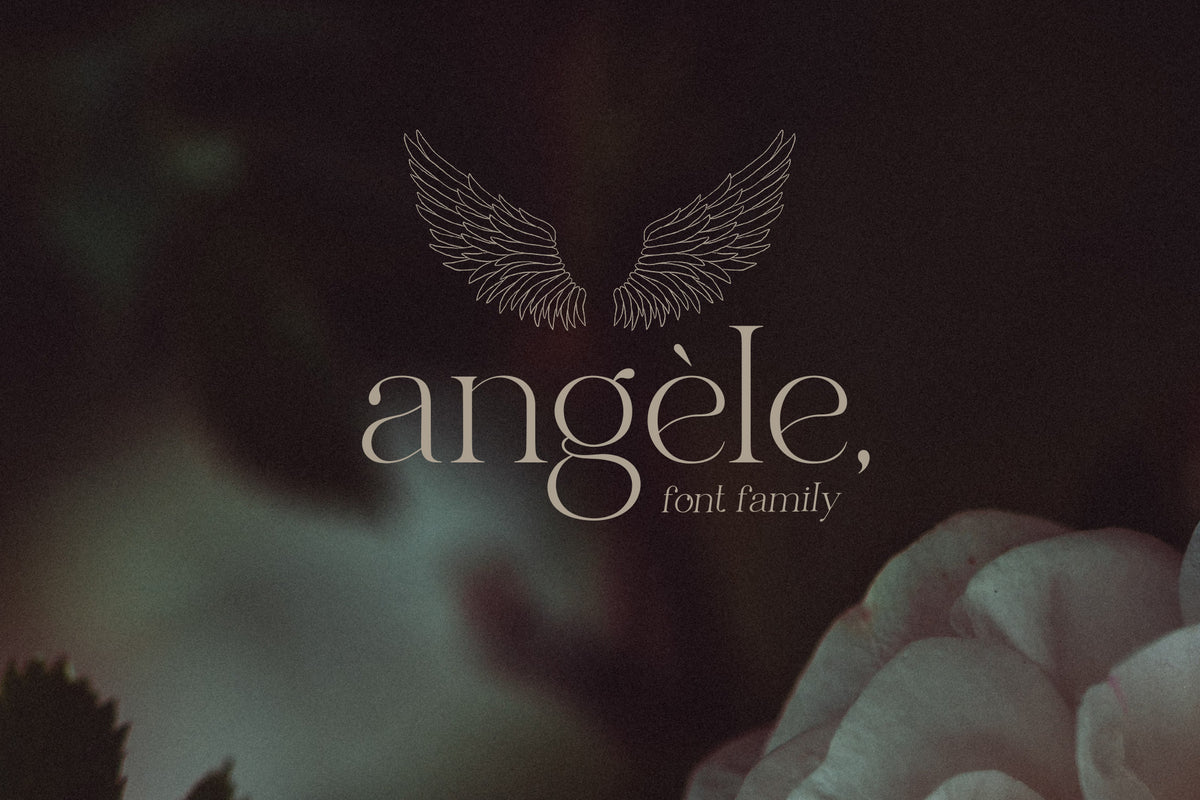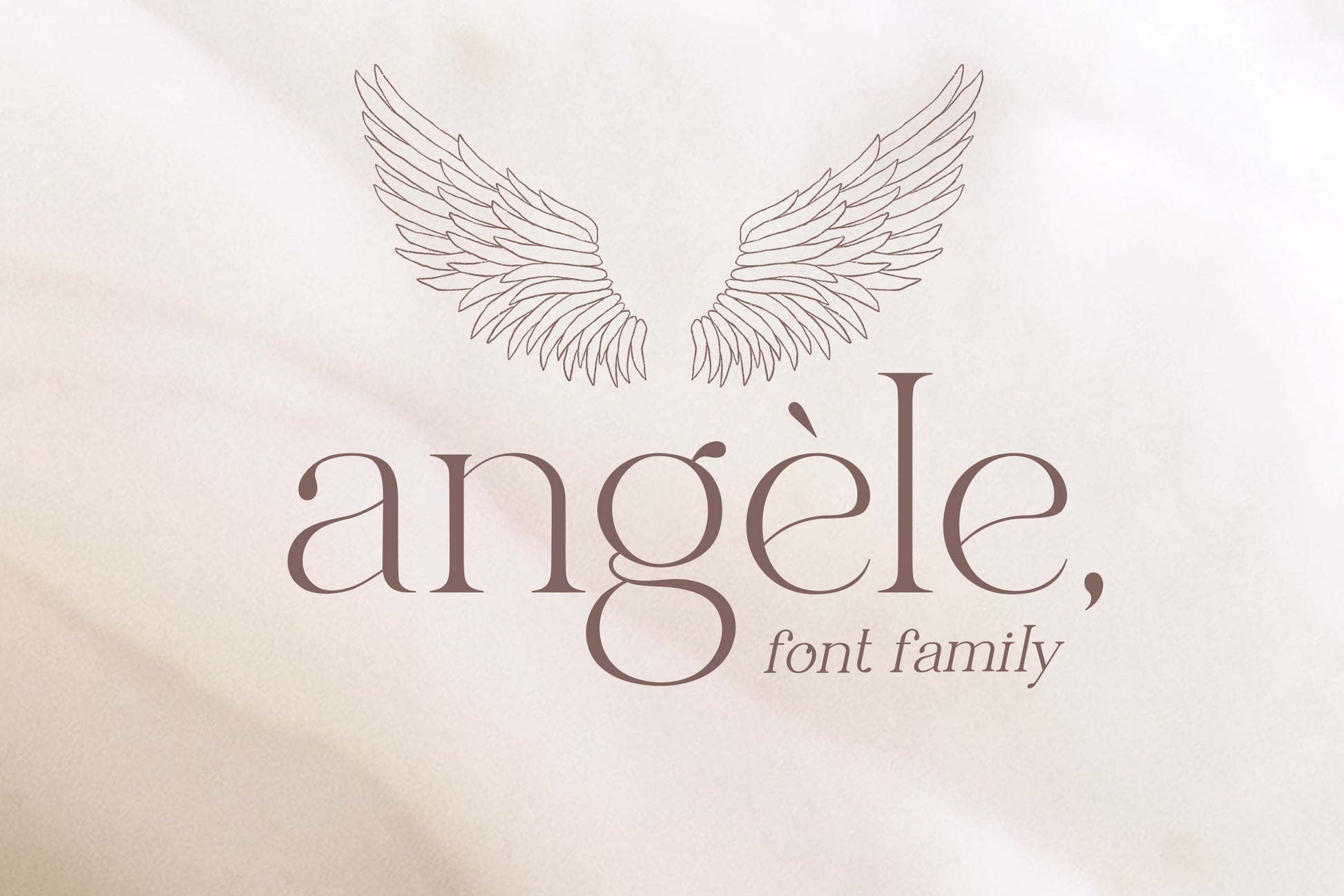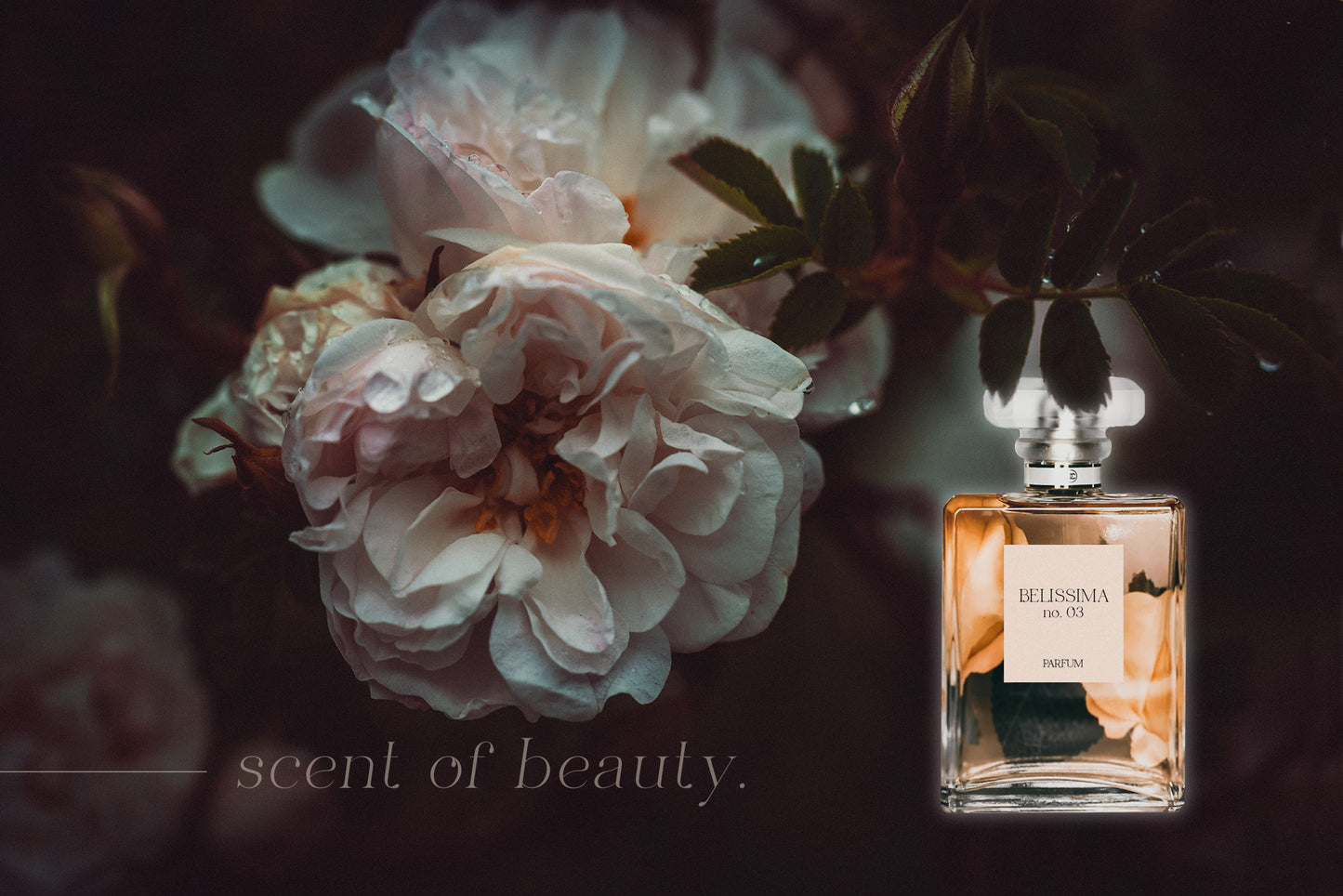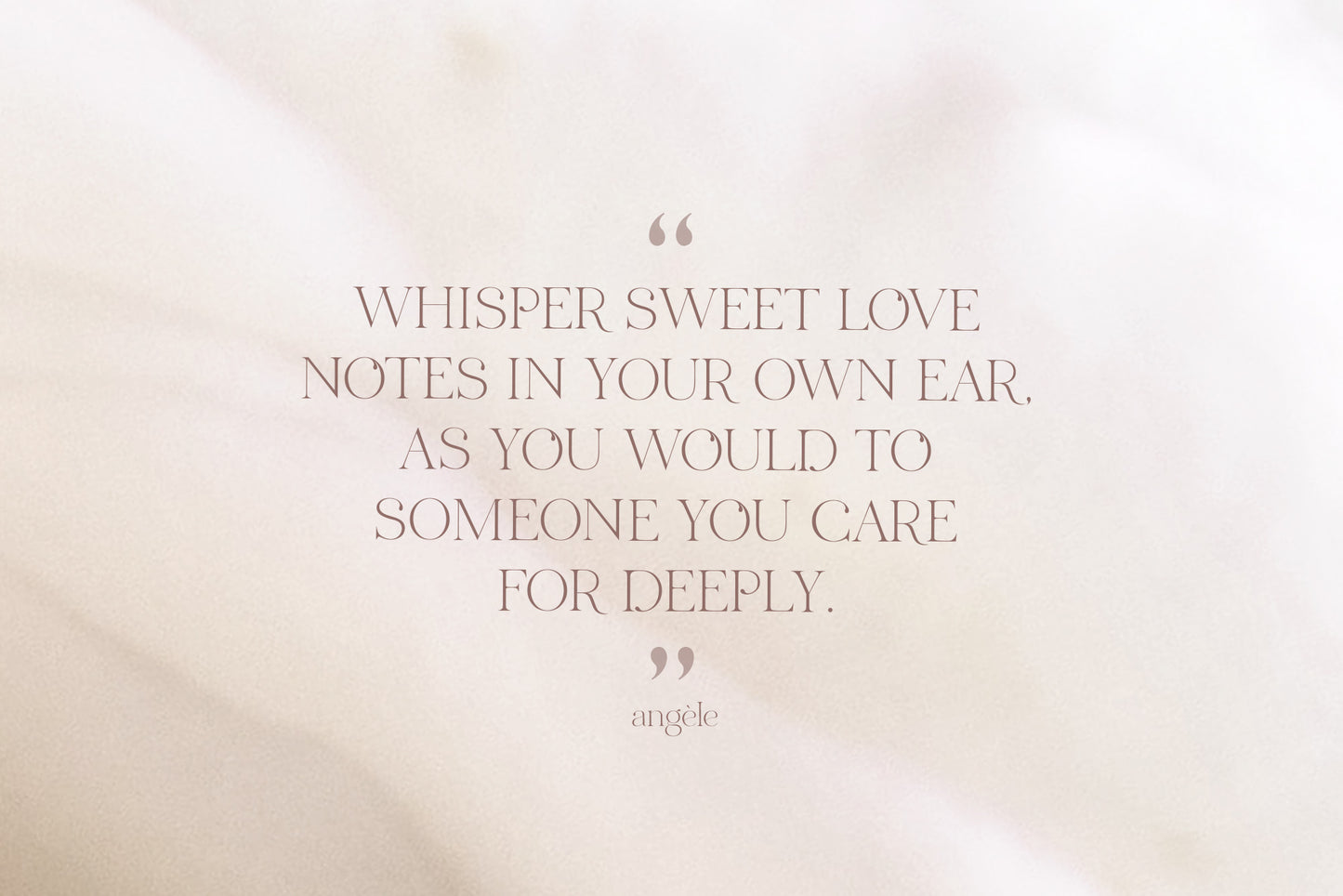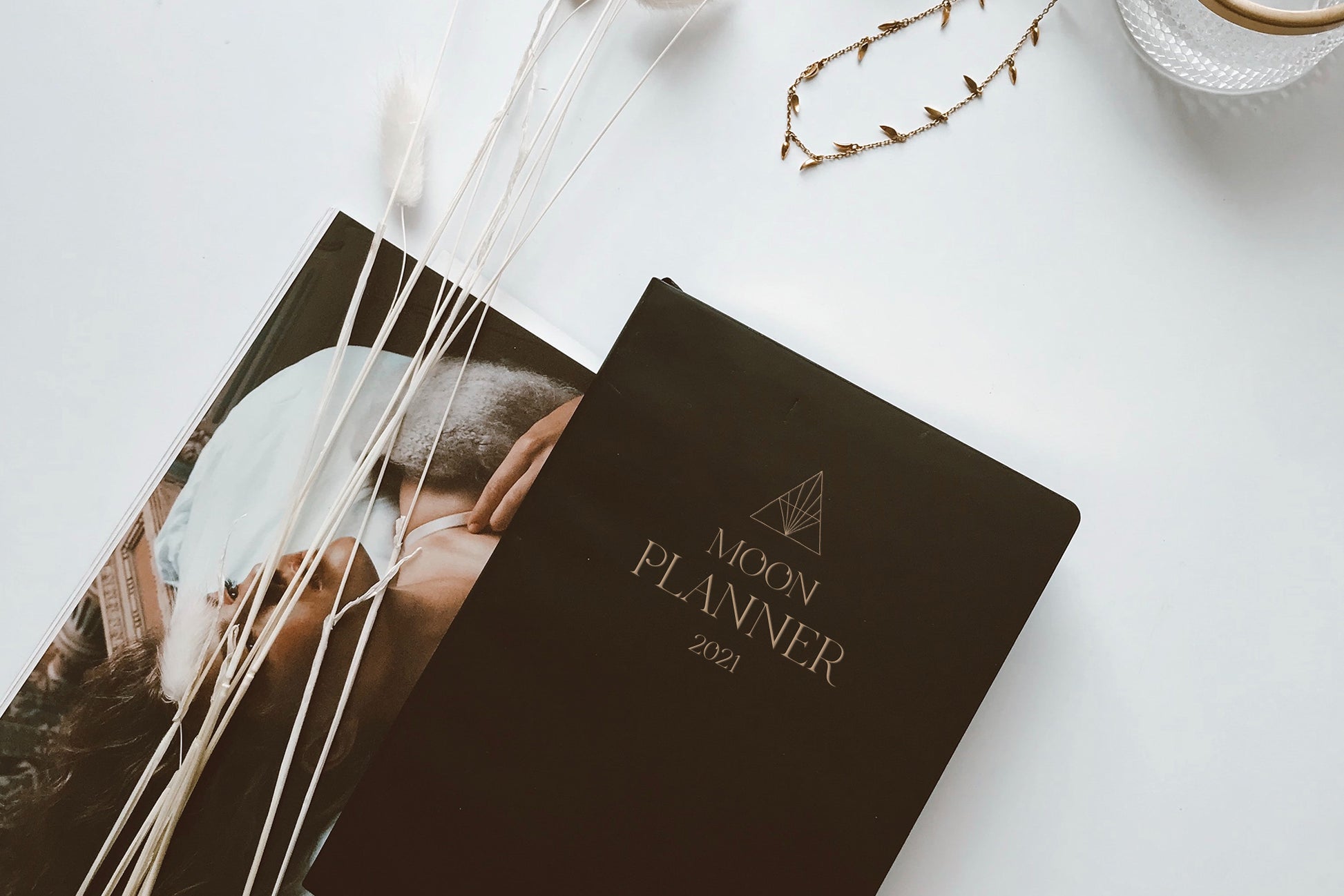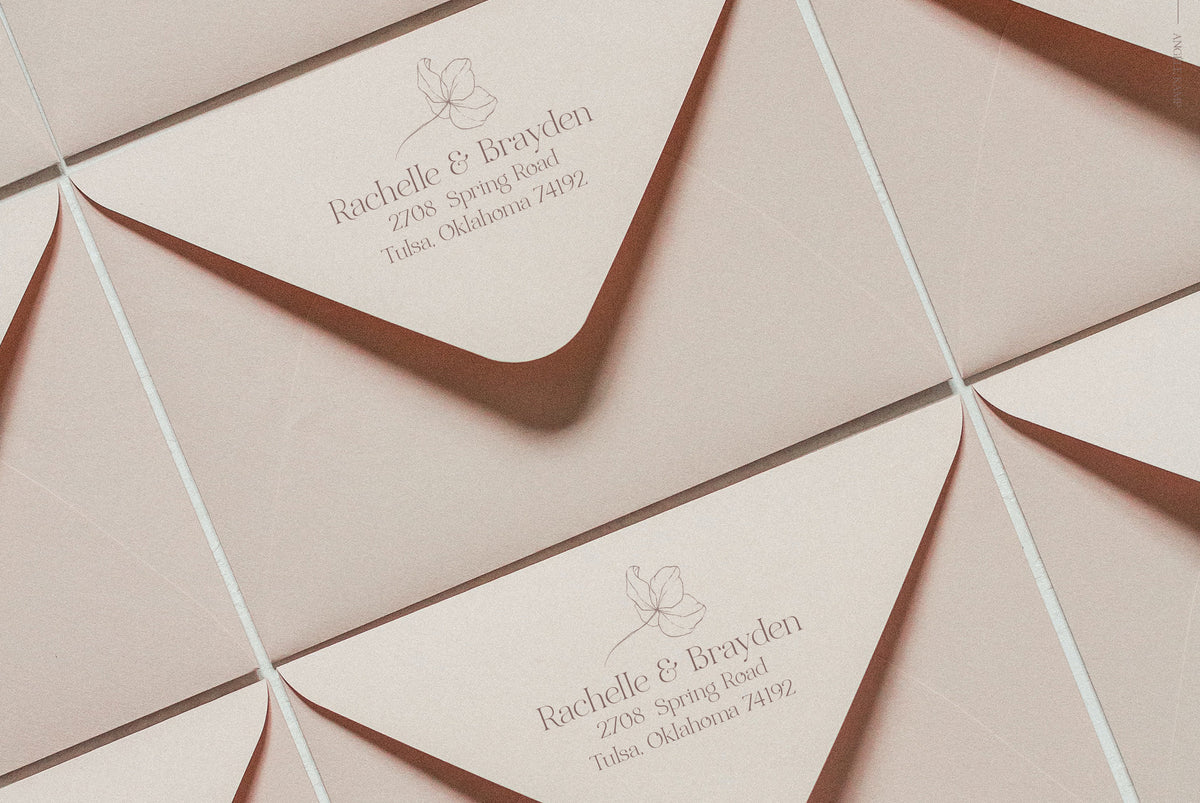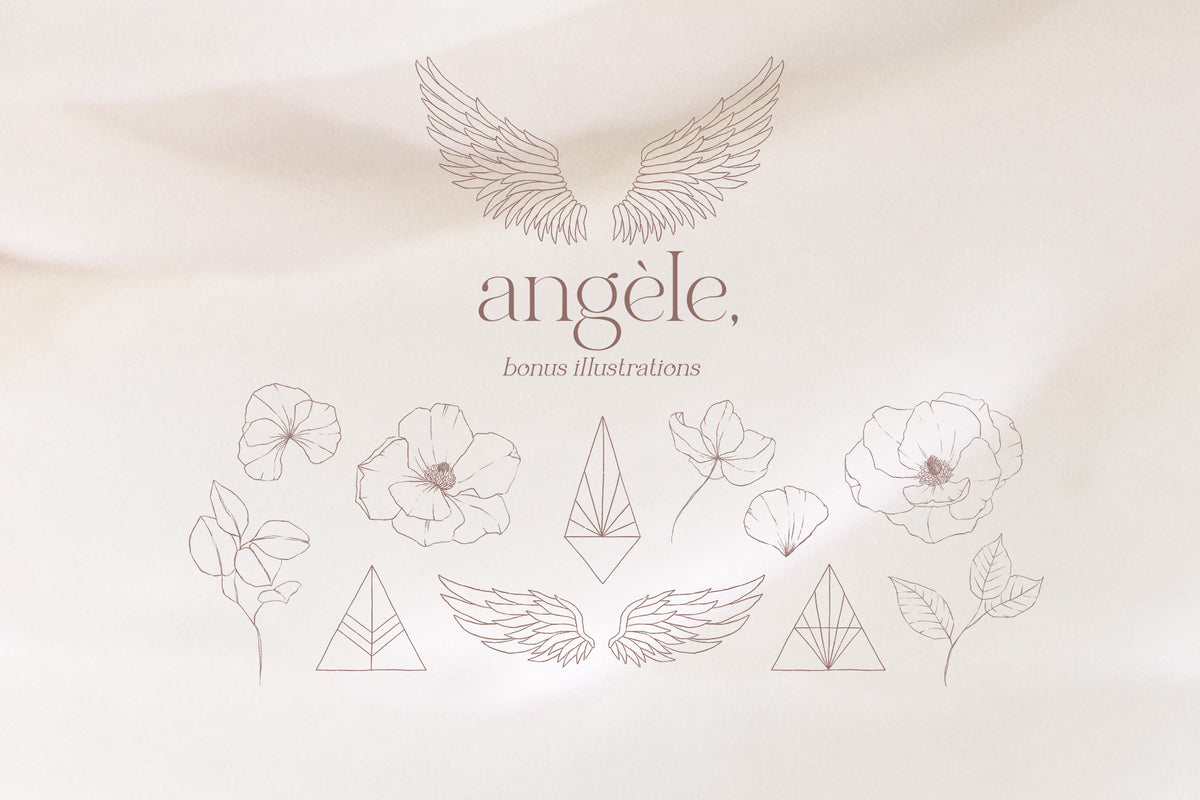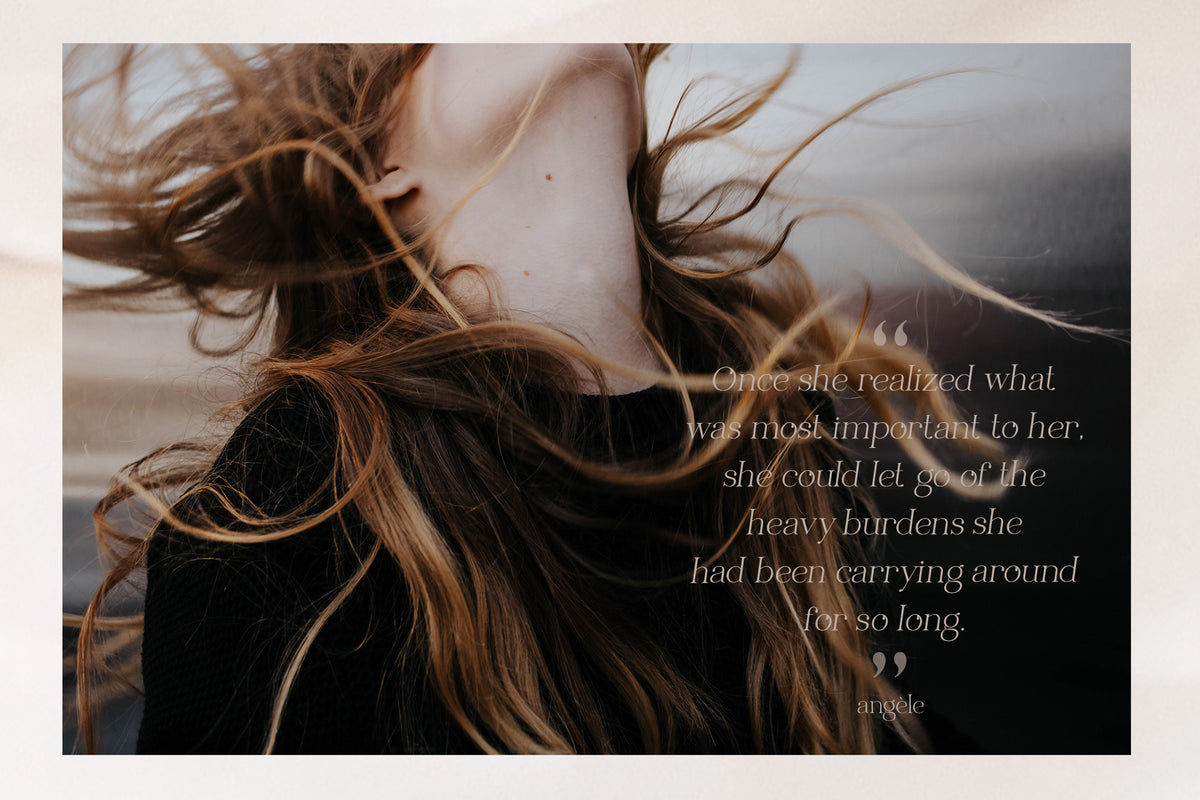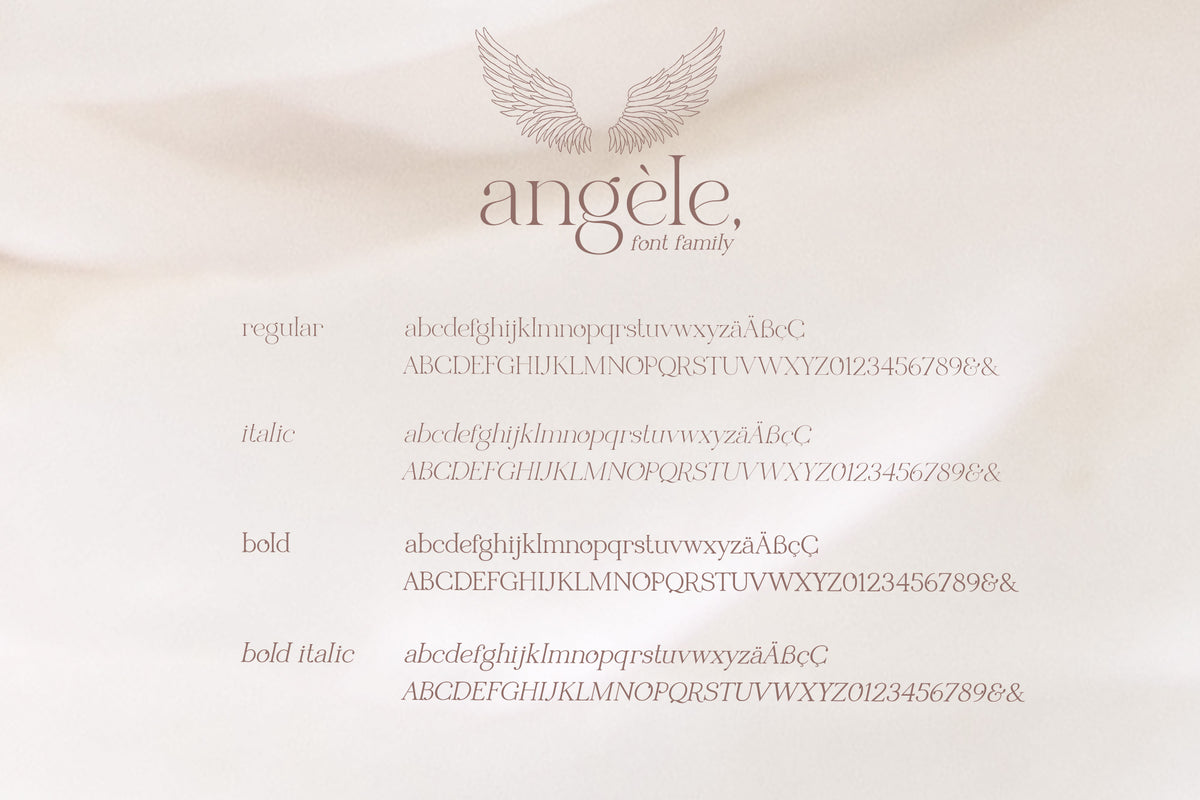
Angele, font family
Angèle is an elegant serif font family with stylish curves. This serif is timeless and can not be missed in your font collection. As a bonus, you will receive 12 beautifully hand-drawn illustrations that complement the font perfectly. This collection will give your design projects that instant touch of class.